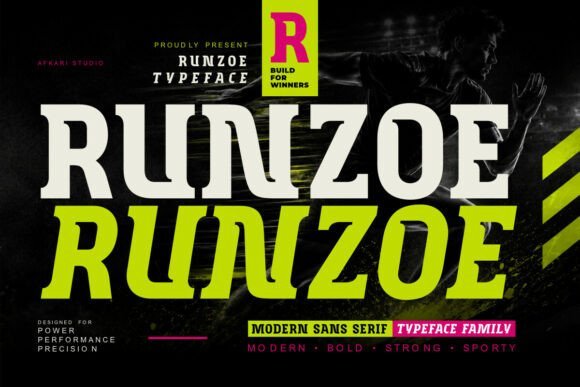
Introduction to Runzoe Font
Runzoe is a bold and contemporary modern sans serif display typeface crafted to deliver strong visual impact with exceptional versatility.
👤 Author afkaristudio
Designed for creators, brands, and designers who demand clean aesthetics and powerful typography, Runzoe combines geometric precision with modern character details to create a typeface that stands out across both digital and print applications Featuring Regular and Italic styles, Runzoe offers flexibility for dynamic branding systems, eye-catching headlines, sports-inspired graphics, advertising campaigns, social media content, logo design, packaging, posters, and editorial layouts.
Key Features of Runzoe Font